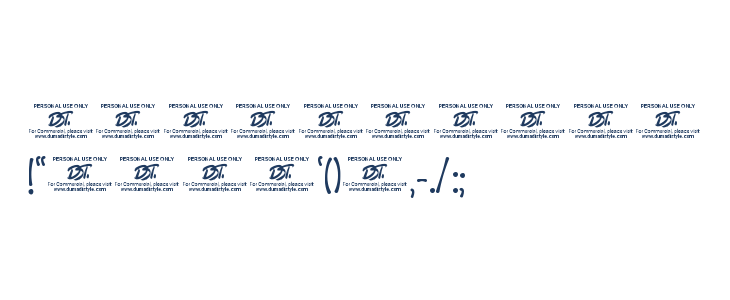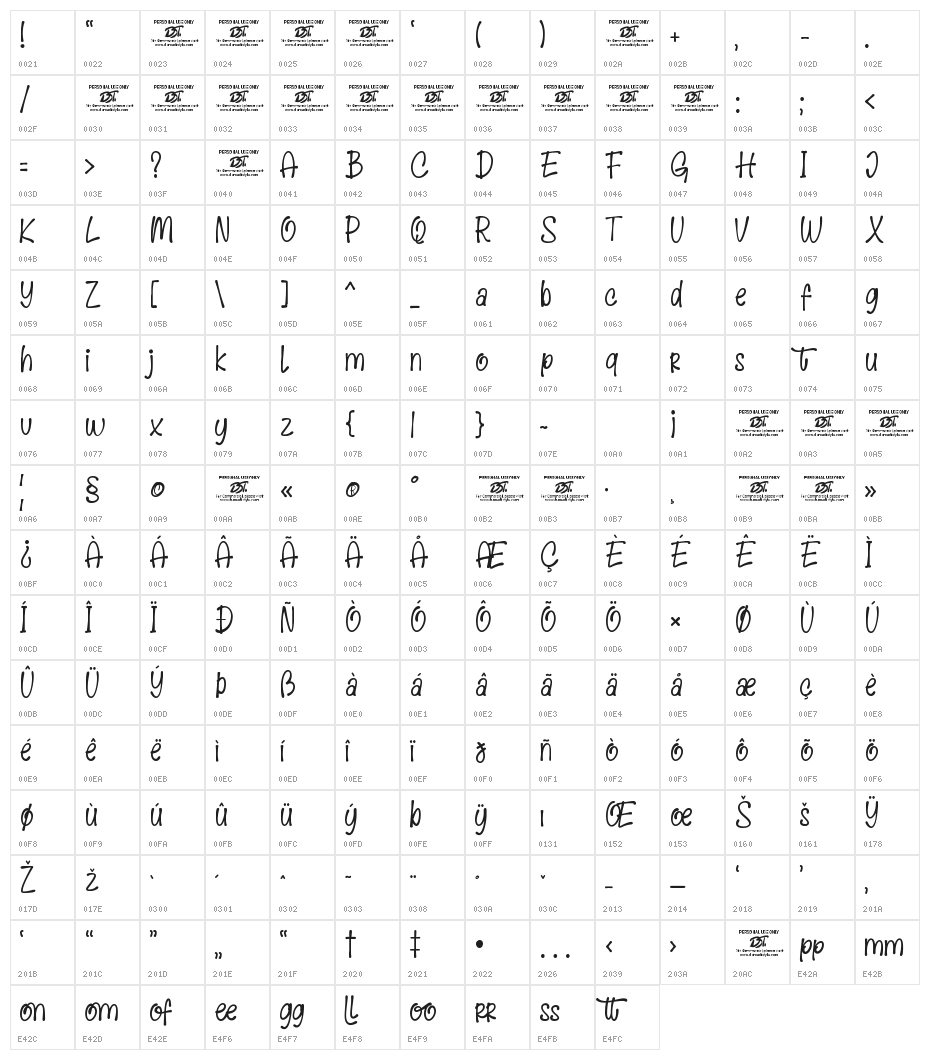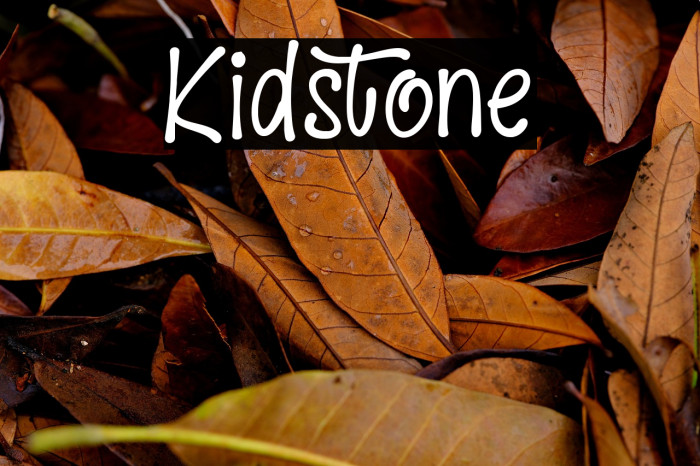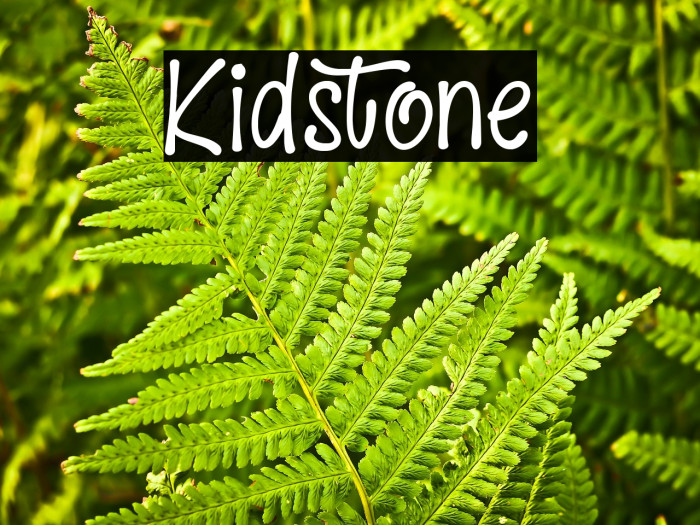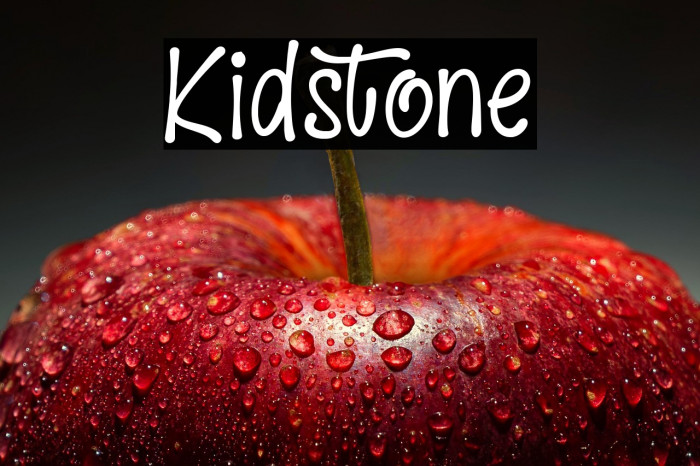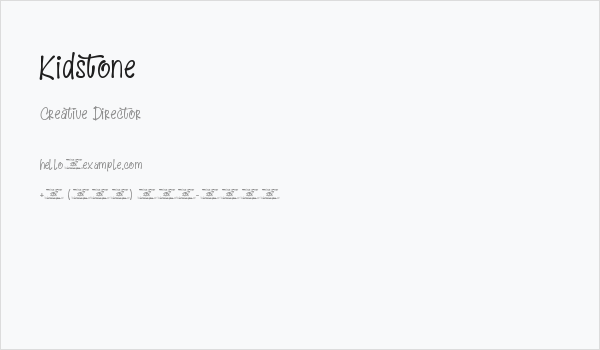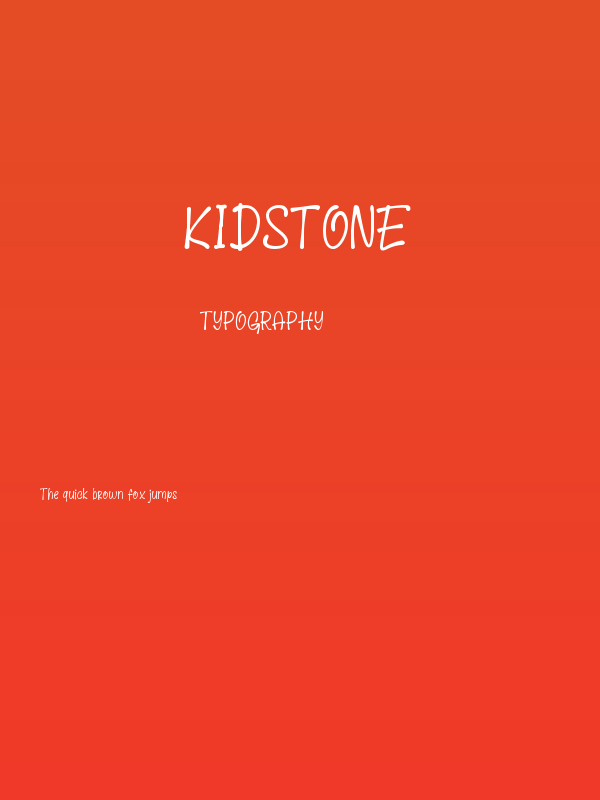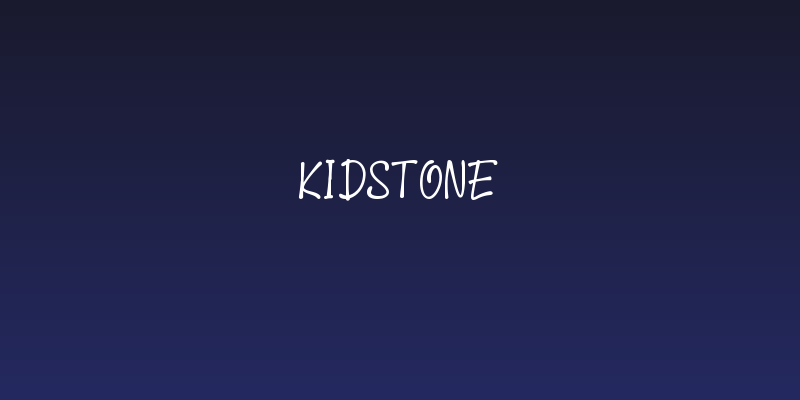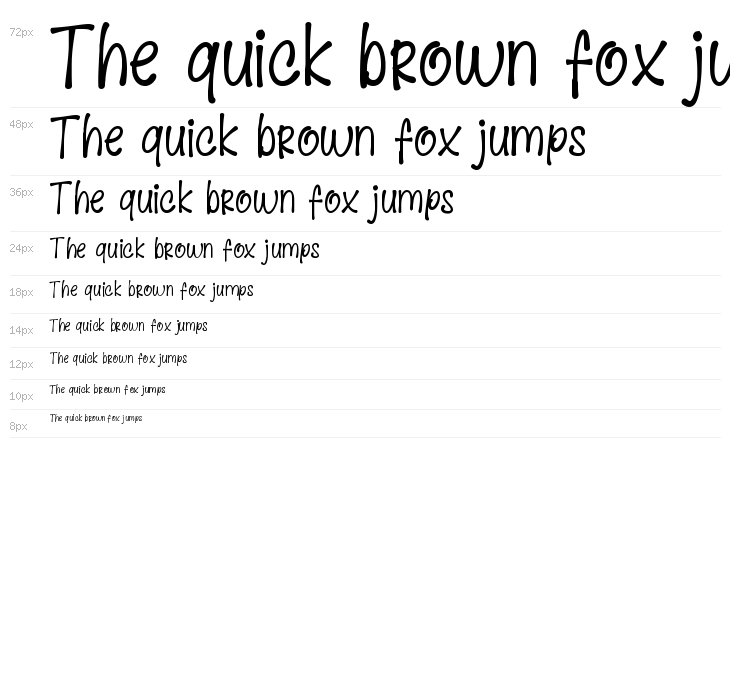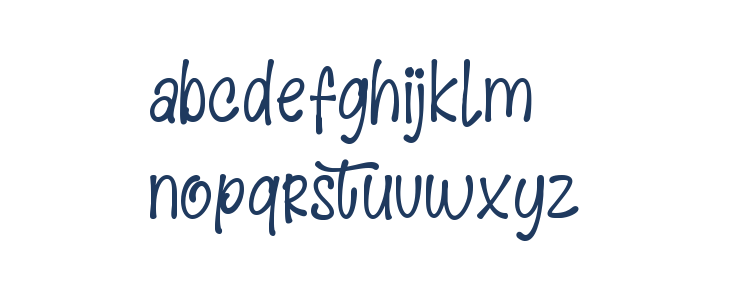
Kidstone Font
Kidstone Description
This playful and whimsical font features a handwritten style with a casual and friendly appearance. The letters are slightly irregular, giving it a natural and organic feel. The strokes are smooth and rounded, with a moderate thickness that maintains readability while adding a touch of personality. The uppercase and lowercase letters are well-balanced, and the font includes a full set of numerals and a variety of special characters. Its informal style makes it suitable for projects that require a personal and approachable touch.
| Overall Style | Playful |
| Use Case | Headlines, Logos, Informal Text |
| Proposed Projects | Ideal for children's books, greeting cards, playful branding, and informal invitations. |